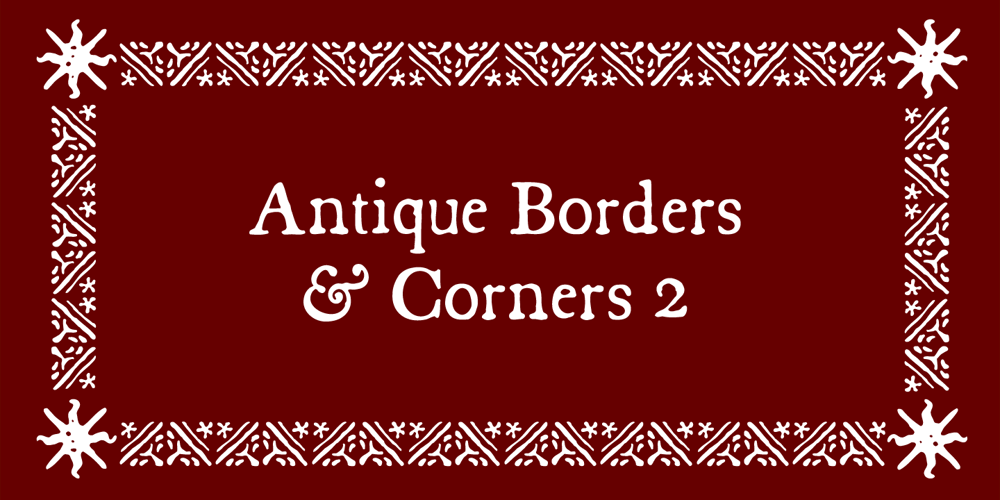
Antique Borders & Corners 2 Font Family was designed by Stephen Miggas and published by Aerotype. Antique Borders & Corners 2 contains 1 styles and family package options. Hand selected from multiple sources, the 60+ glyphs of Antique Borders & Corners 2 can be mixed and matched to make authentic 18th and 19th century borders of any length. Flip the orientation for ‘bottom’ borders with the shift key.